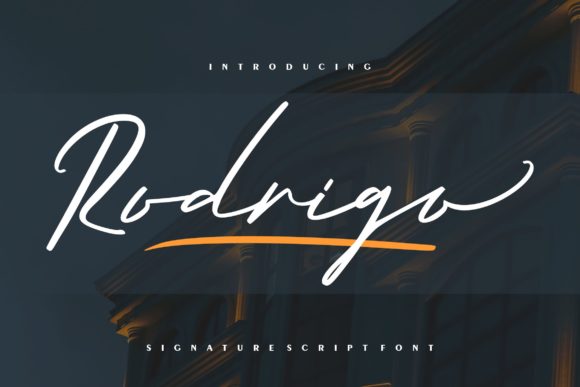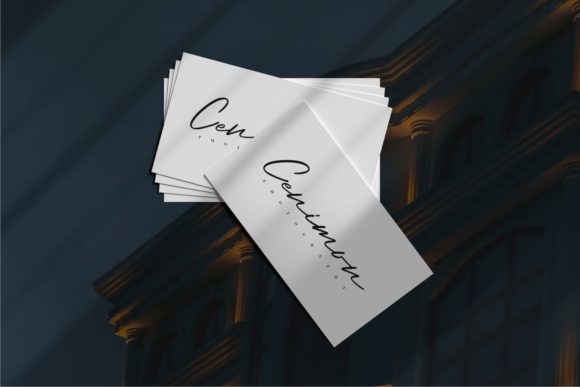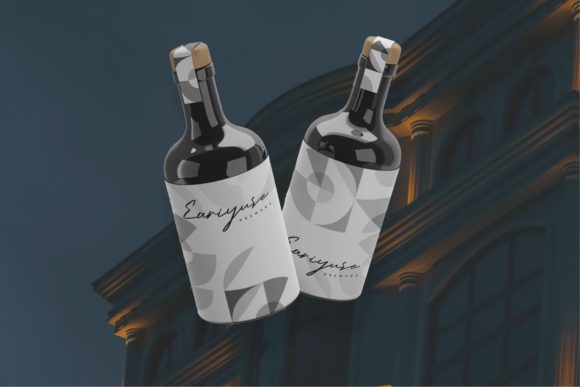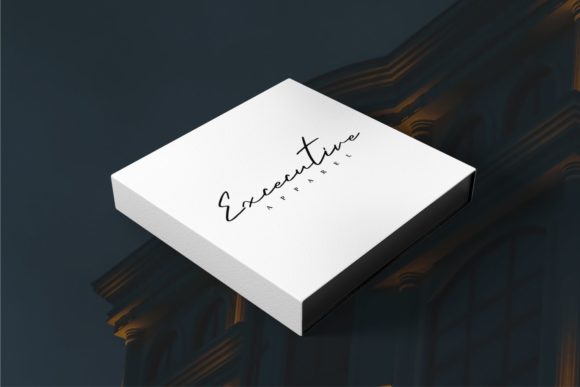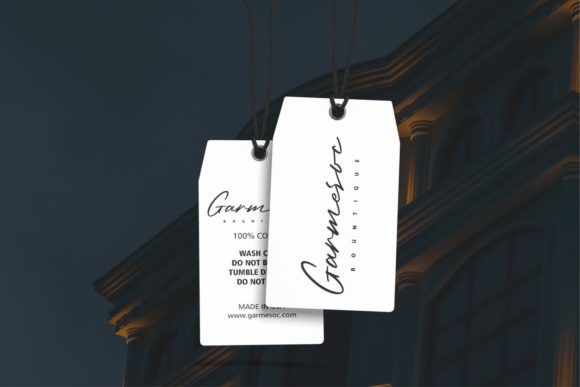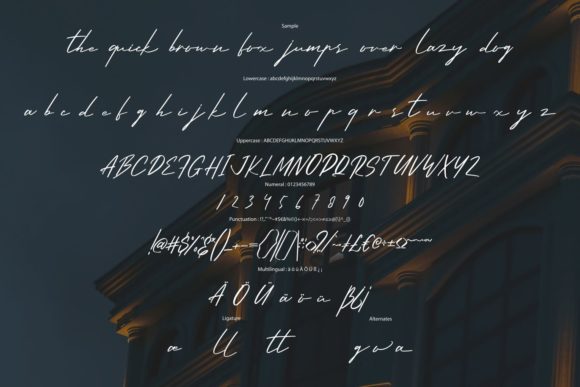
Rodrigo Font
About Rodrigo Font
Rodrigo is a thin lettered and graceful script font. Fall for its ravishing style and use it to create gorgeous wedding invitations, beautiful stationary art, eye-catching social media posts, and much more!